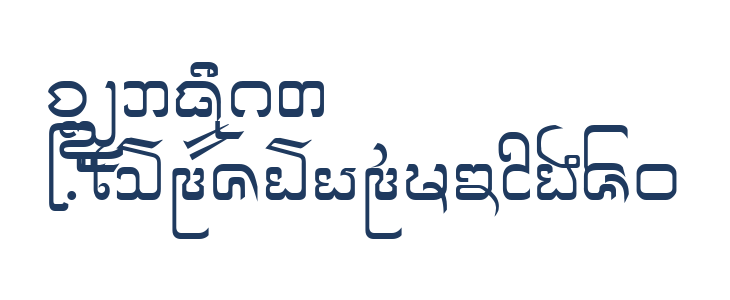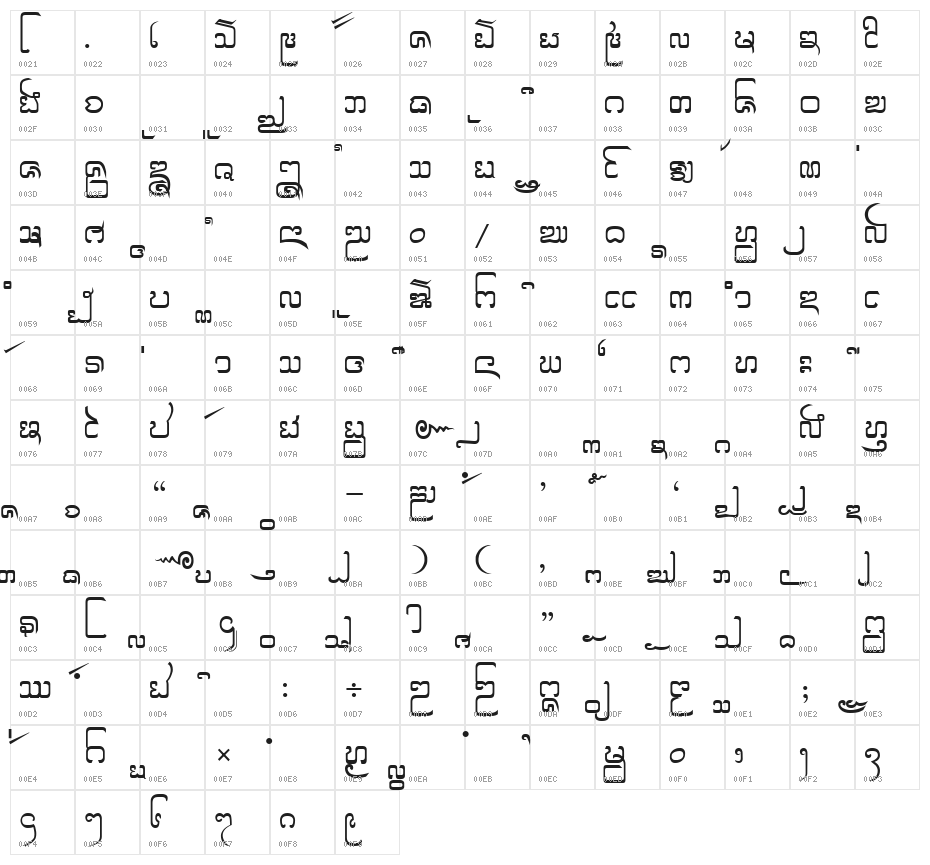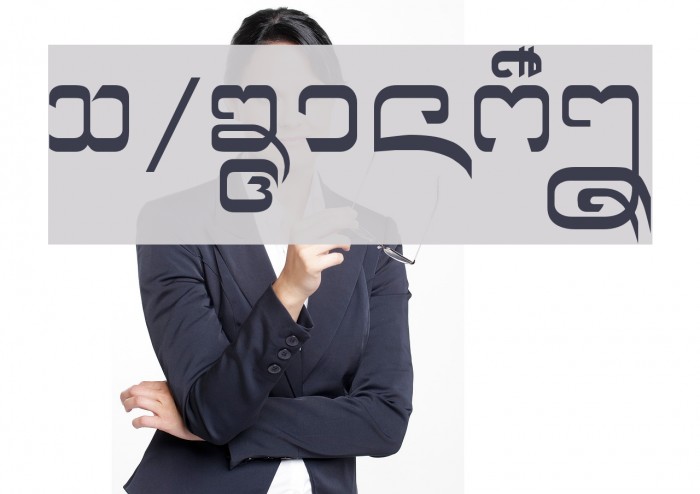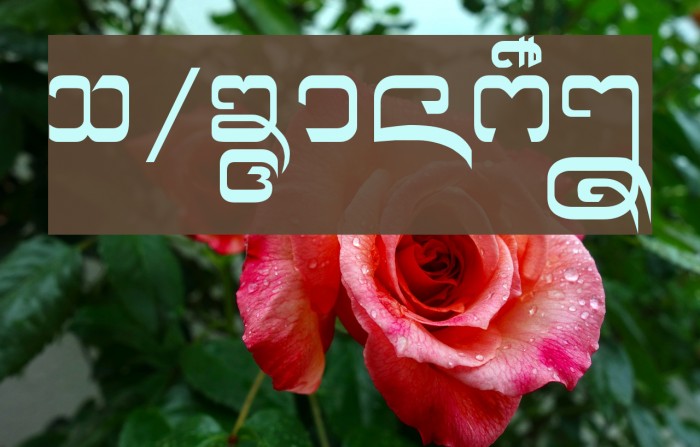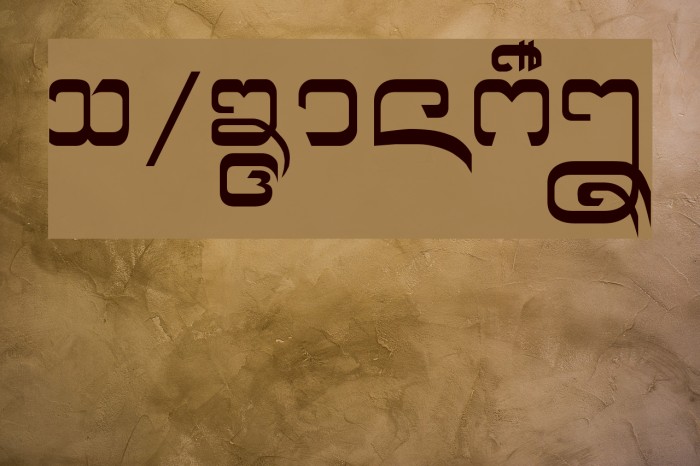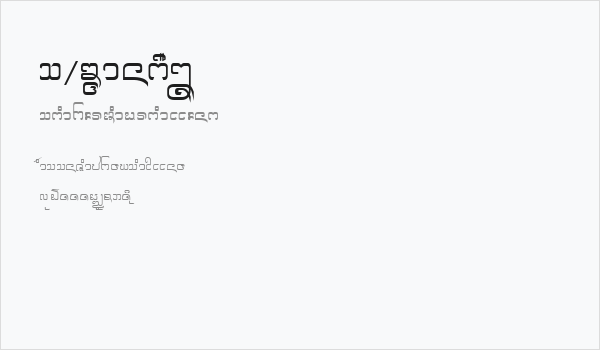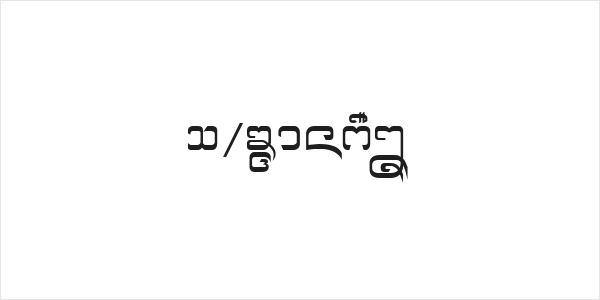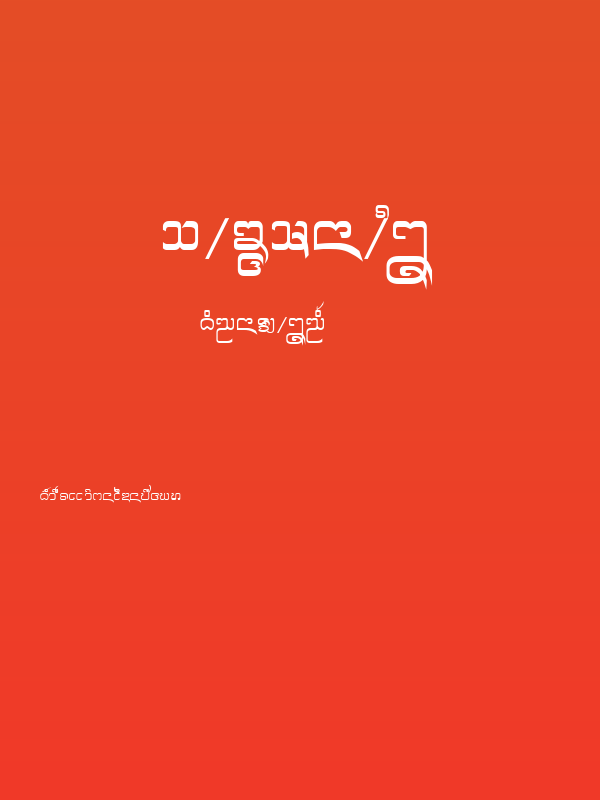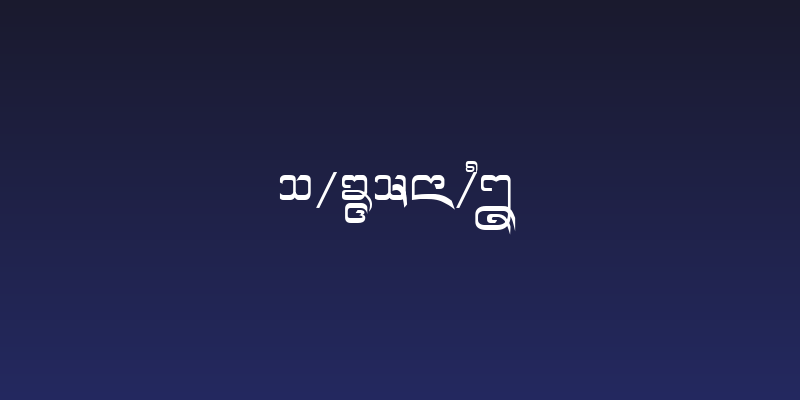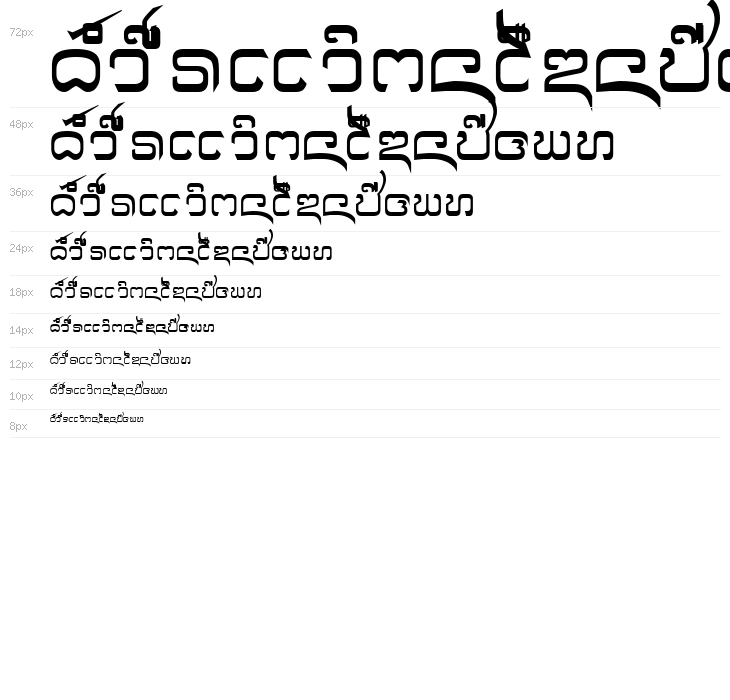
CR-MkornA Font
CR-MkornA Description
A geometric, monolinear typeface with rounded corners and consistent stroke thickness, featuring distinct, stylized curves and angular terminals. The letterforms are bold and have a modern, decorative flair, with some unique ornamental elements on select characters.
| Use Case | Headlines, Logos, Posters, Display text |
| Proposed Projects | Posters, branding, display headlines, packaging, event invitations, artistic projects. |